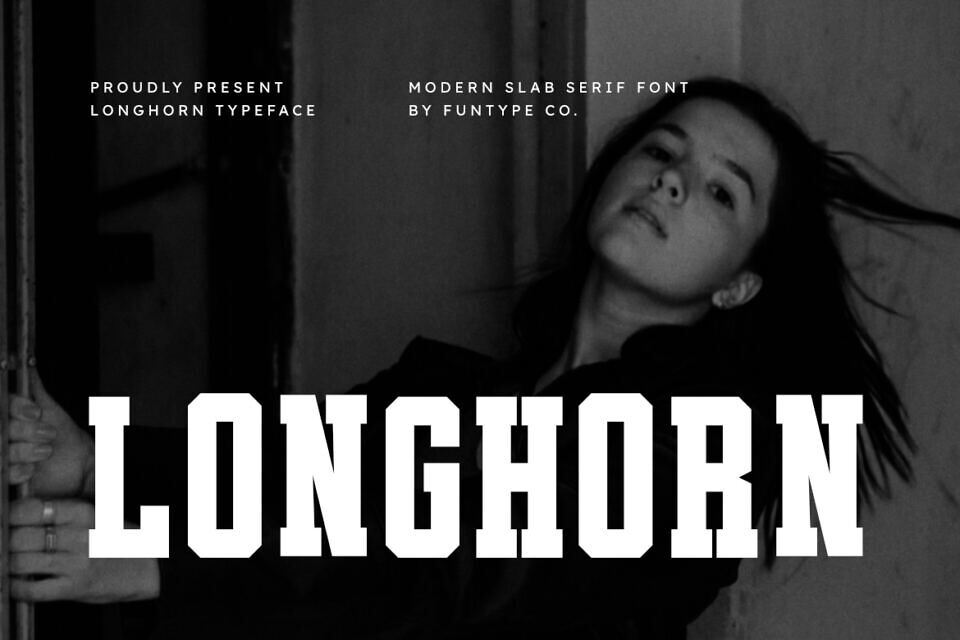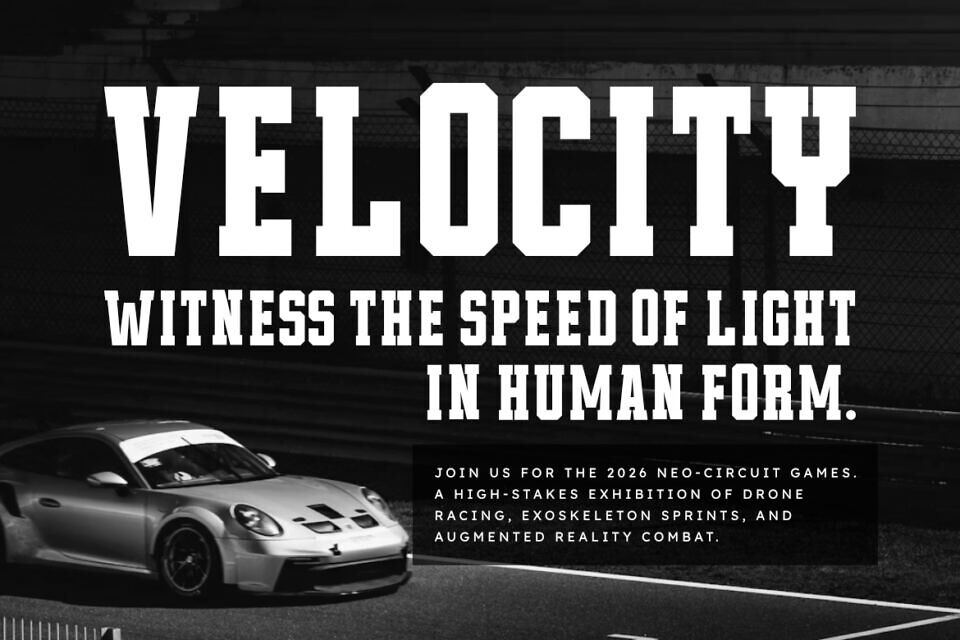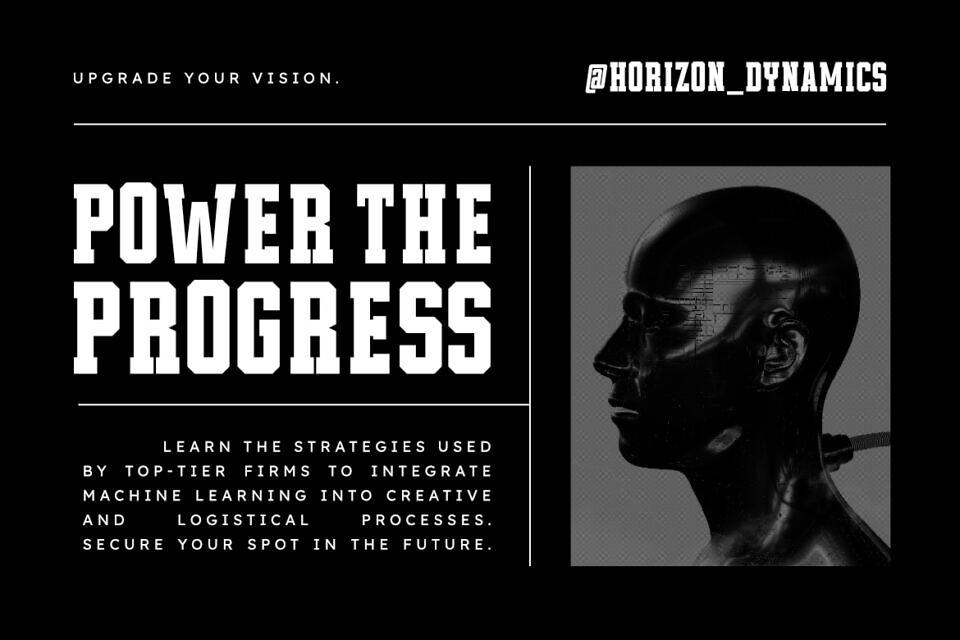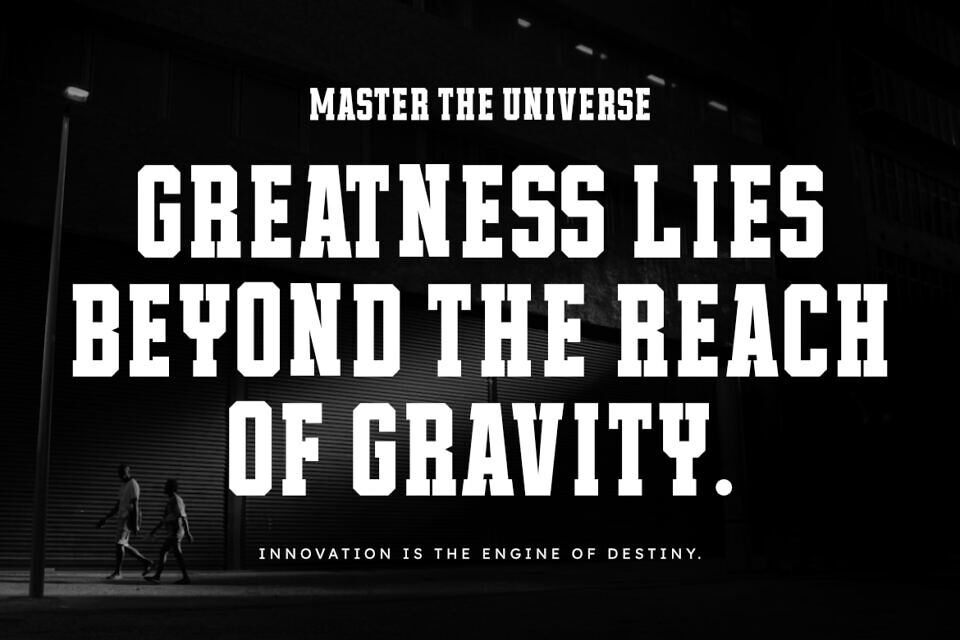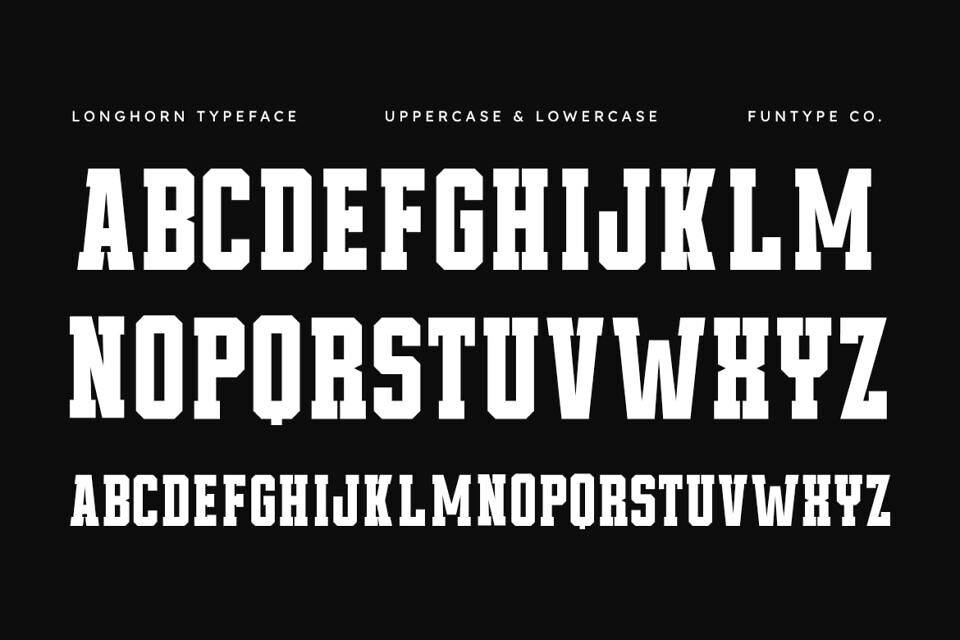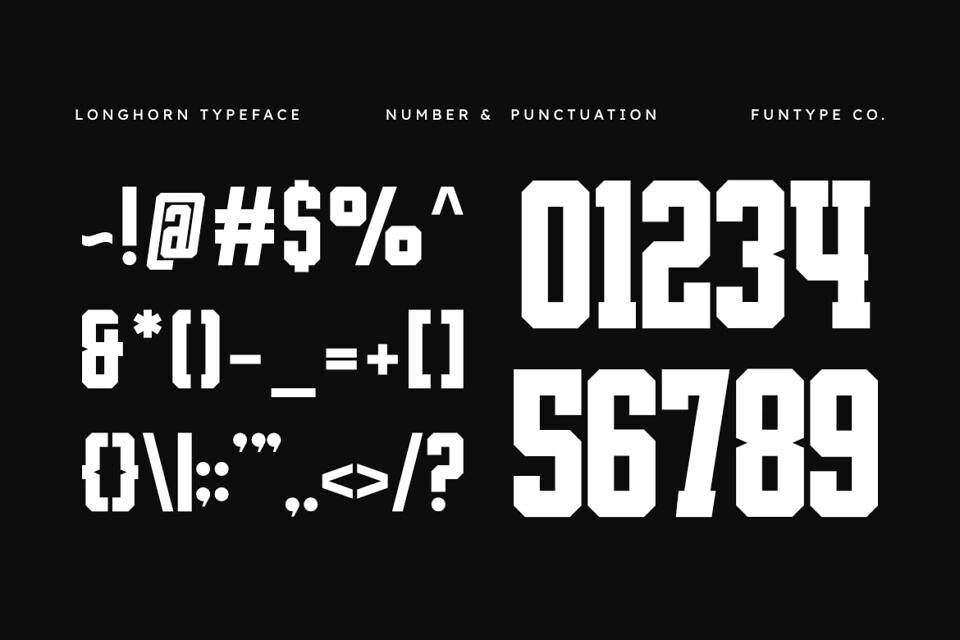
Longhorn Font
Longhorn is a sophisticated and powerful modern slab serif font, thoughtfully designed to capture the essence of contemporary impact and bold storytelling. With its wide geometric structure and clean, heavy slab serifs, Longhorn offers a professional aesthetic that brings a touch of commanding presence to any creative project.
Whether you are crafting a striking cinematic logo, a modern industrial brand, or bold editorial layouts, Longhorn provides a seamless blend of contemporary flair and timeless authority.